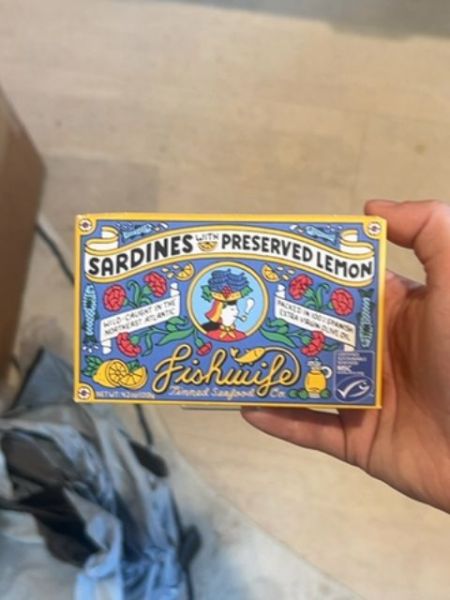
Fishwife Sardines with Preserved Lemon
This product is a canned sardine packaged with preserved lemon, providing a tangy and savory flavor perfect for snacking or meal preparation.
The typography on the packaging has a vintage feel, using a bold serif font for 'Sardines with Preserved Lemon' that commands attention. The script font used for 'Fishwife' has a whimsical, hand-drawn quality that complements the artisanal theme of the packaging. Overall, the typography balances readability with a decorative style that enhances the visual appeal.
The packaging features a vibrant and artisanal design with colorful illustrations including fish and lemons that evoke a sense of freshness and playfulness. The color palette predominantly uses blues and yellows, providing a maritime and citrus theme that is both eye-catching and informative.
- Fishwife is known for its commitment to sustainable seafood.
- The brand focuses on gourmet-quality tinned fish.
- The use of preserved lemon adds a unique and tangy twist to the sardines.